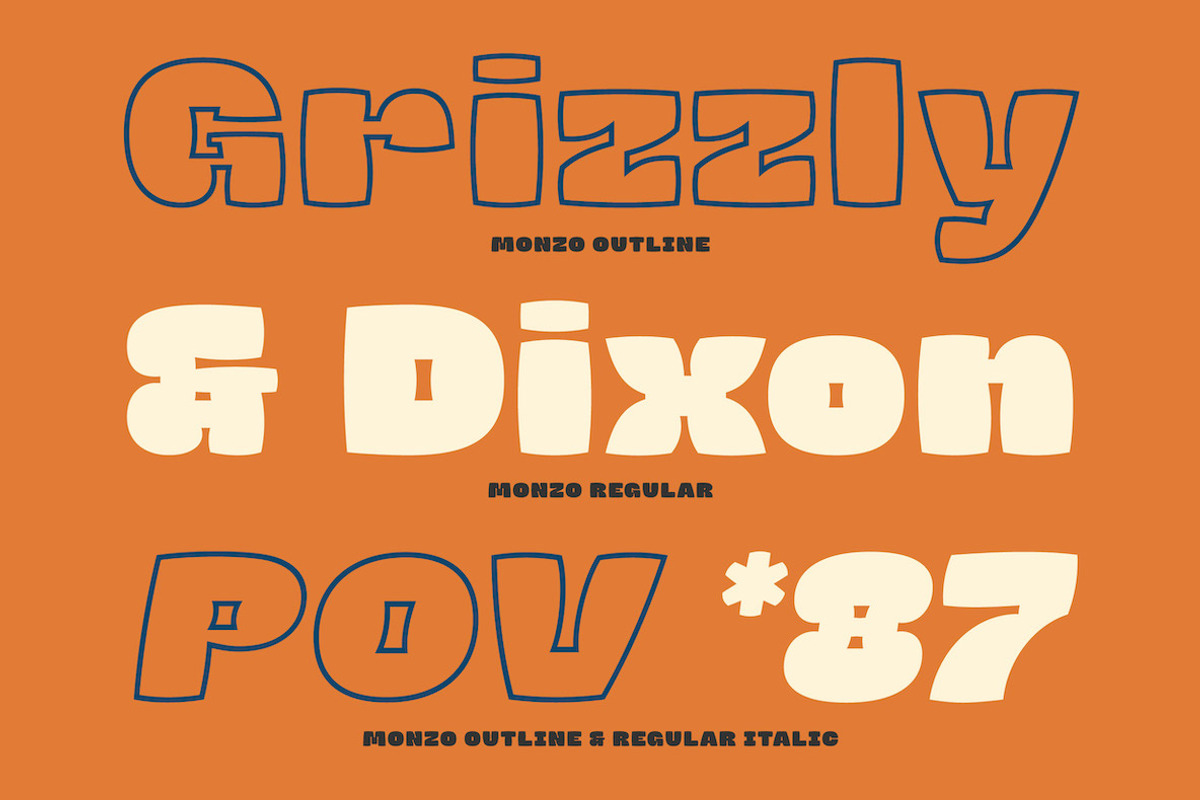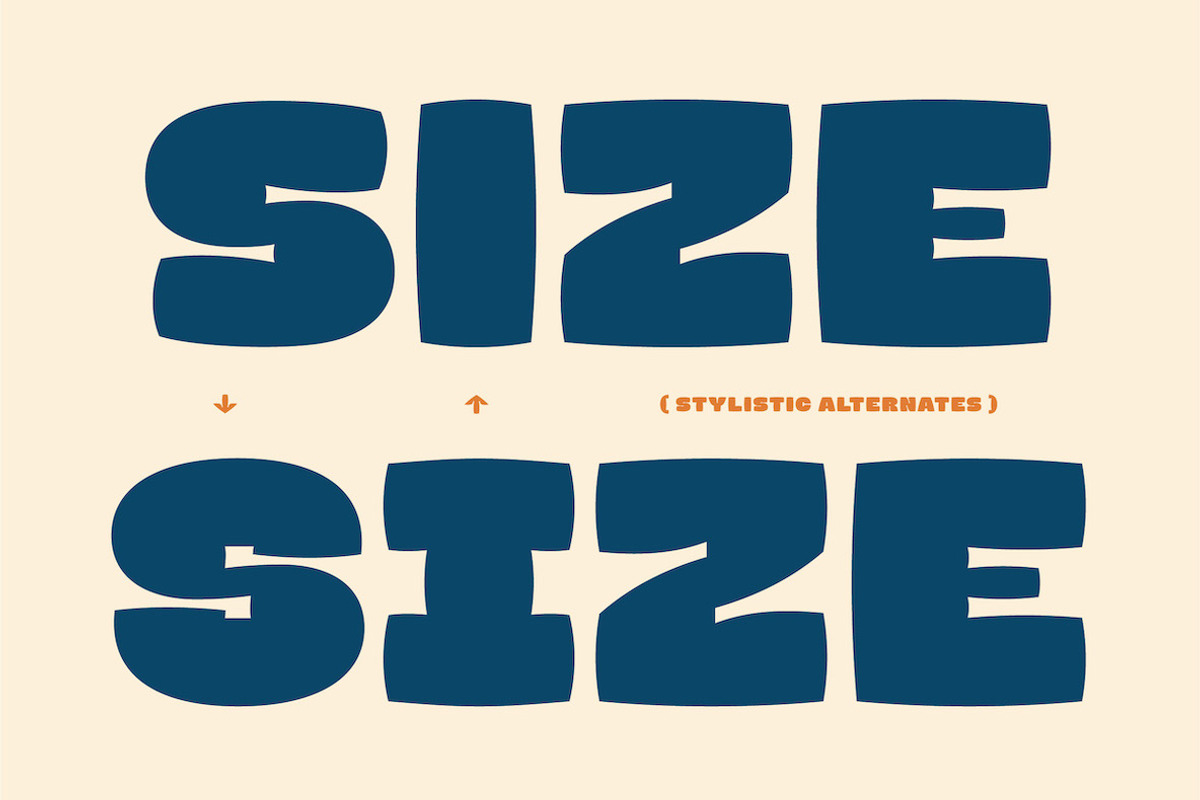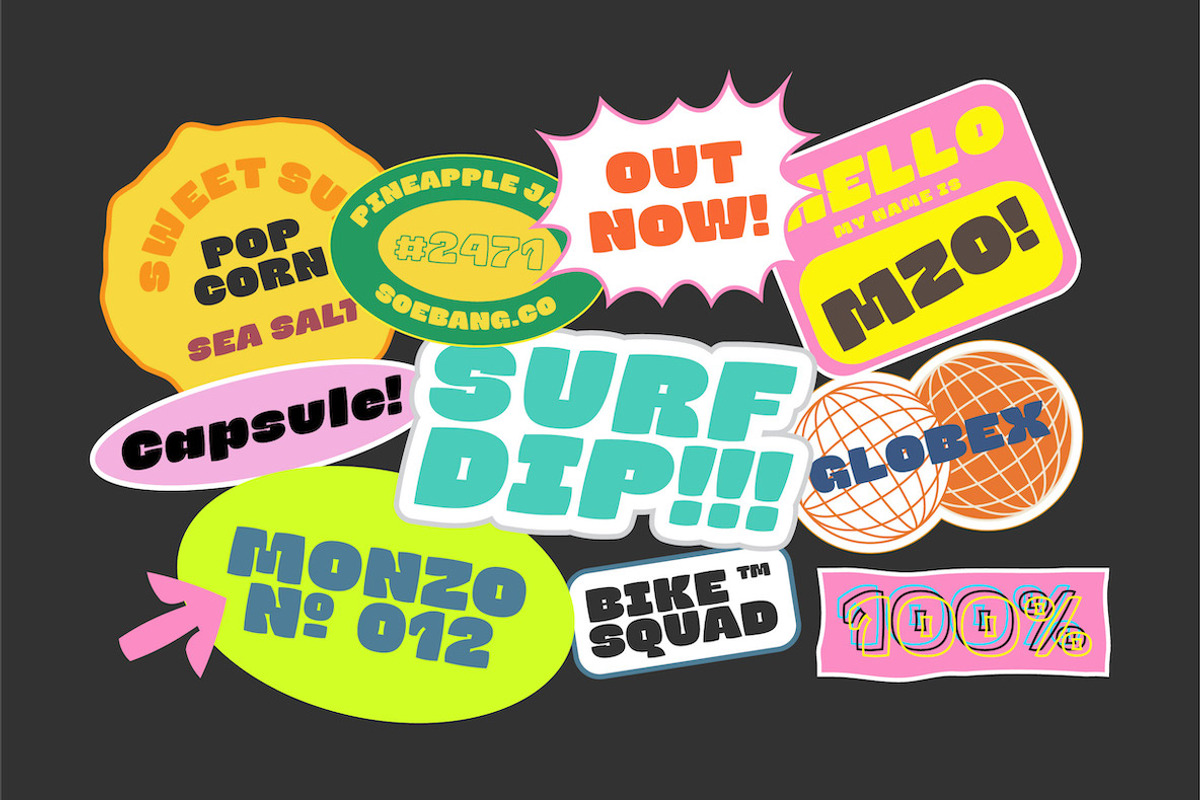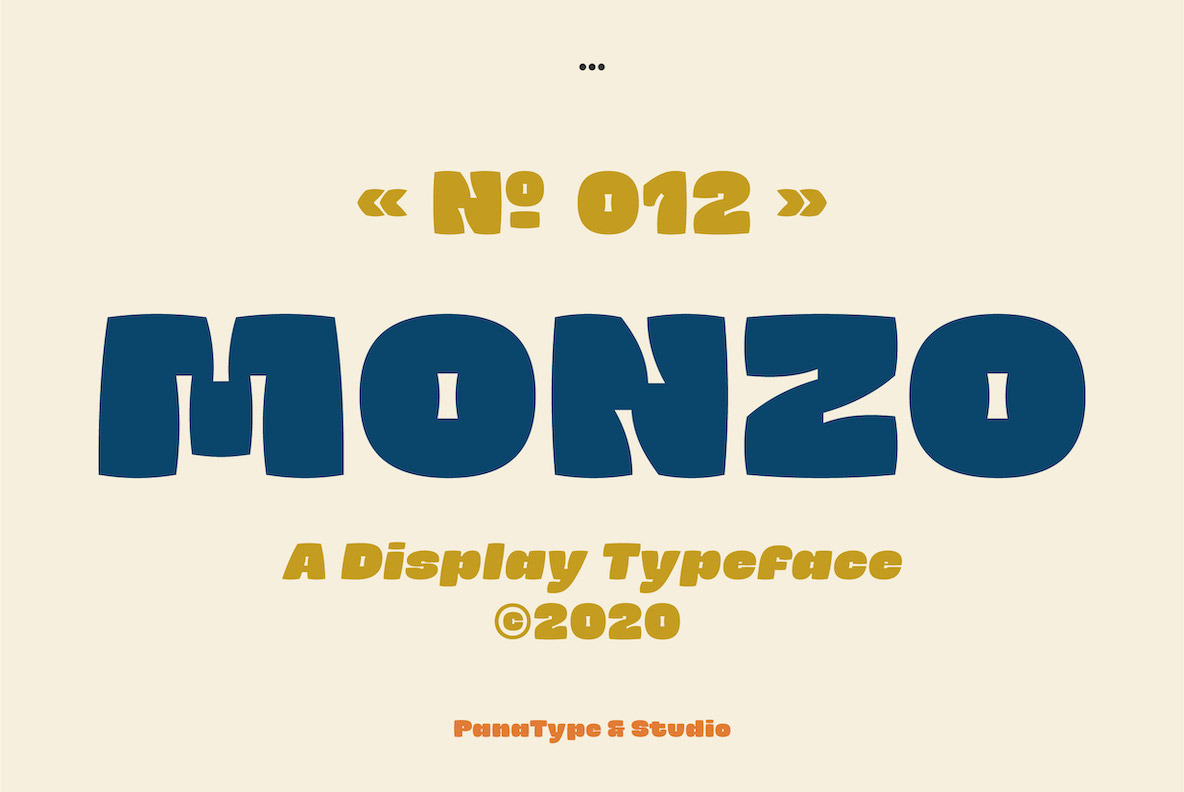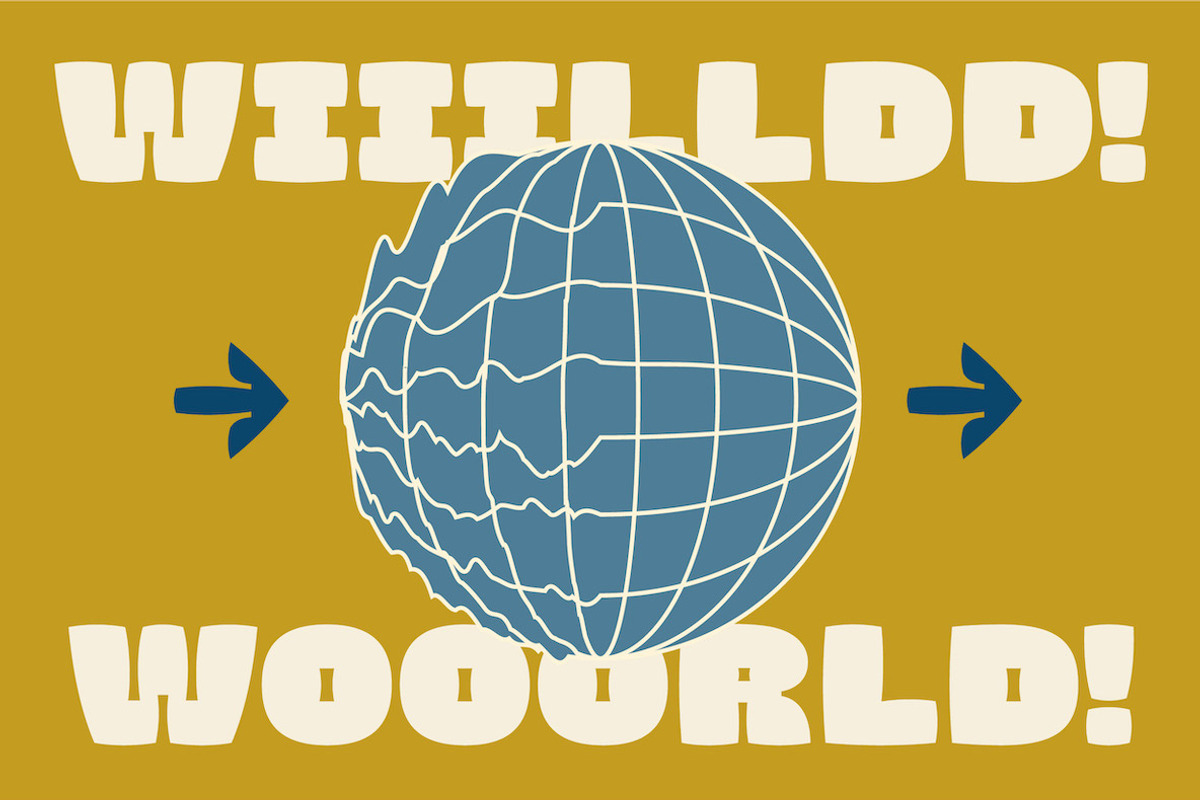
MONZO Display Font
MONZO is Contemporary Fat Font comes with 2 styles ( Regular & Outline ) with corresponding italics. Perfect for Logotype, Head text, Displayed text, and many more).
Support more 75 languages.